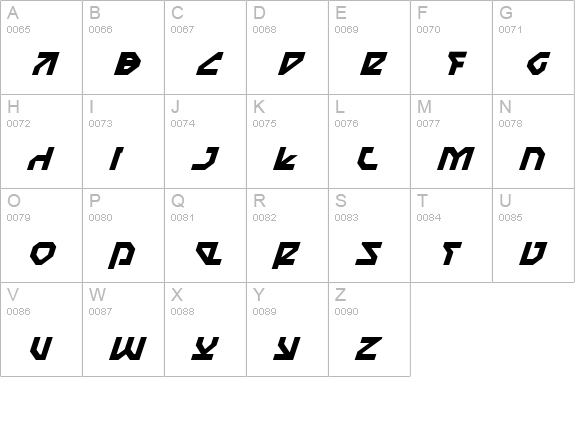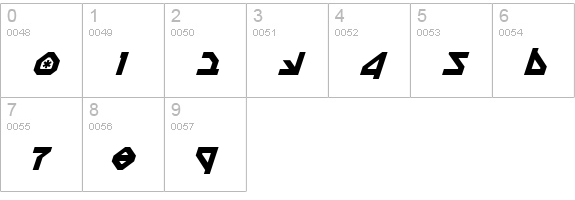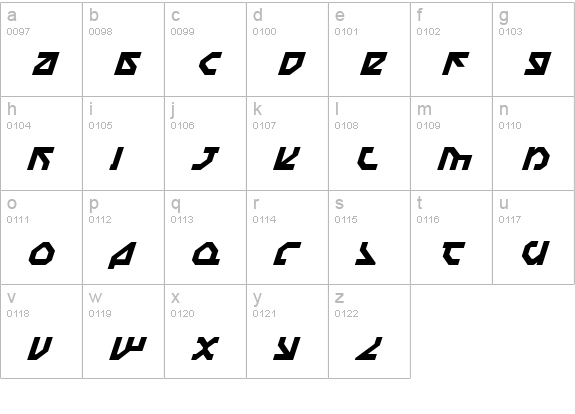
Nostromo Italic is a distinctive, italic variant in the Nostromo typeface family \xE2\x80\x94 well suited to design and typography projects.
Nostromo Italic font exudes elegance and sophistication with its sleek and modern design. The italic style adds a touch of flair and personality to any text, making it perfect for adding a touch of sophistication to your projects. The flowing curves and sharp angles of Nostromo Italic create a dynamic and captivating visual impact that is sure to impress. Whether you're designing a logo, creating a poster, or crafting a website, Nostromo Italic will elevate your work to new heights. The best part? Nostromo Italic is available for free download at FontsMarket.com. This means you can enhance your designs with this stunning font without breaking the bank. Don't miss out on the opportunity to elevate your projects with Nostromo Italic - download it for free today!